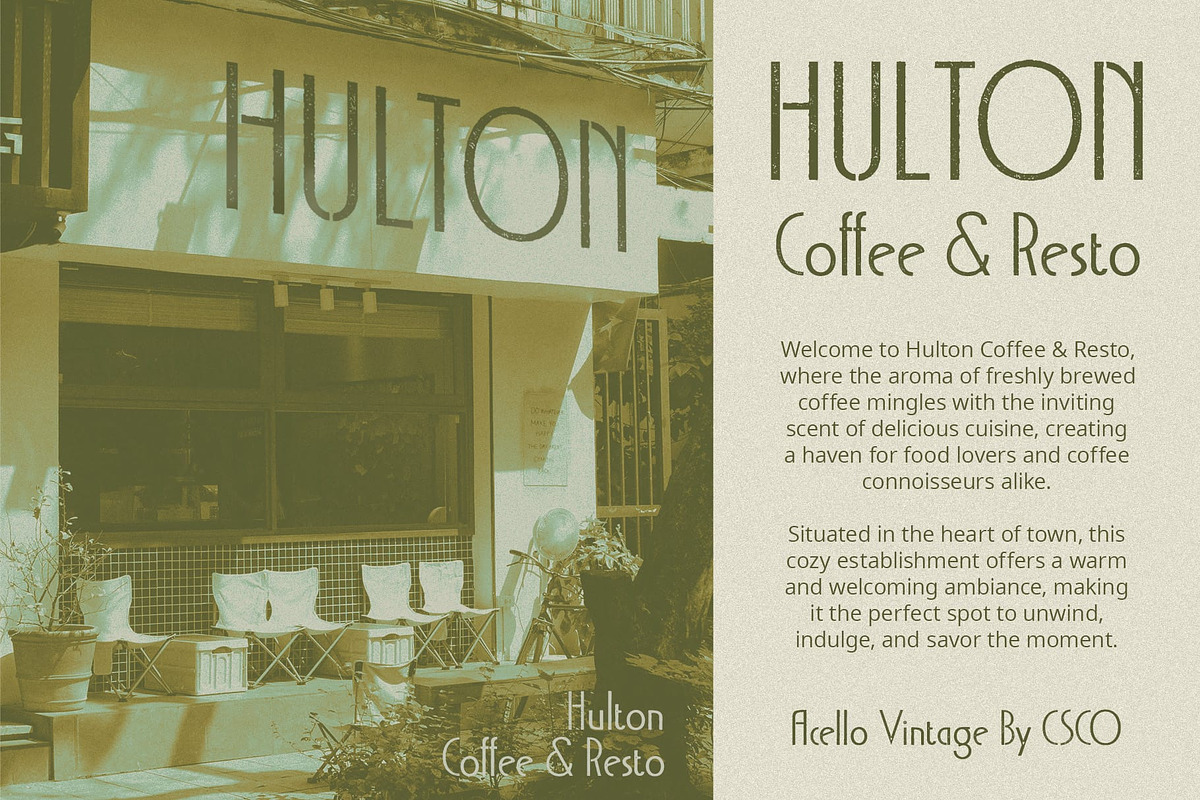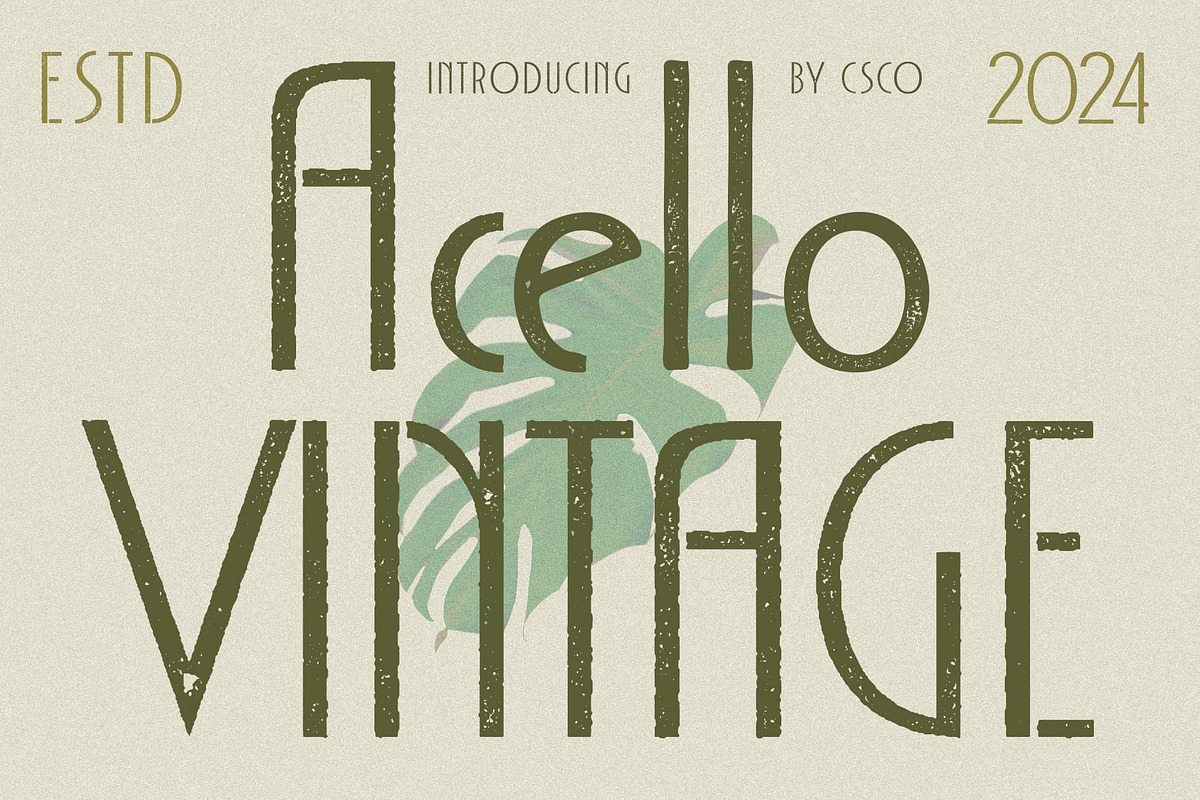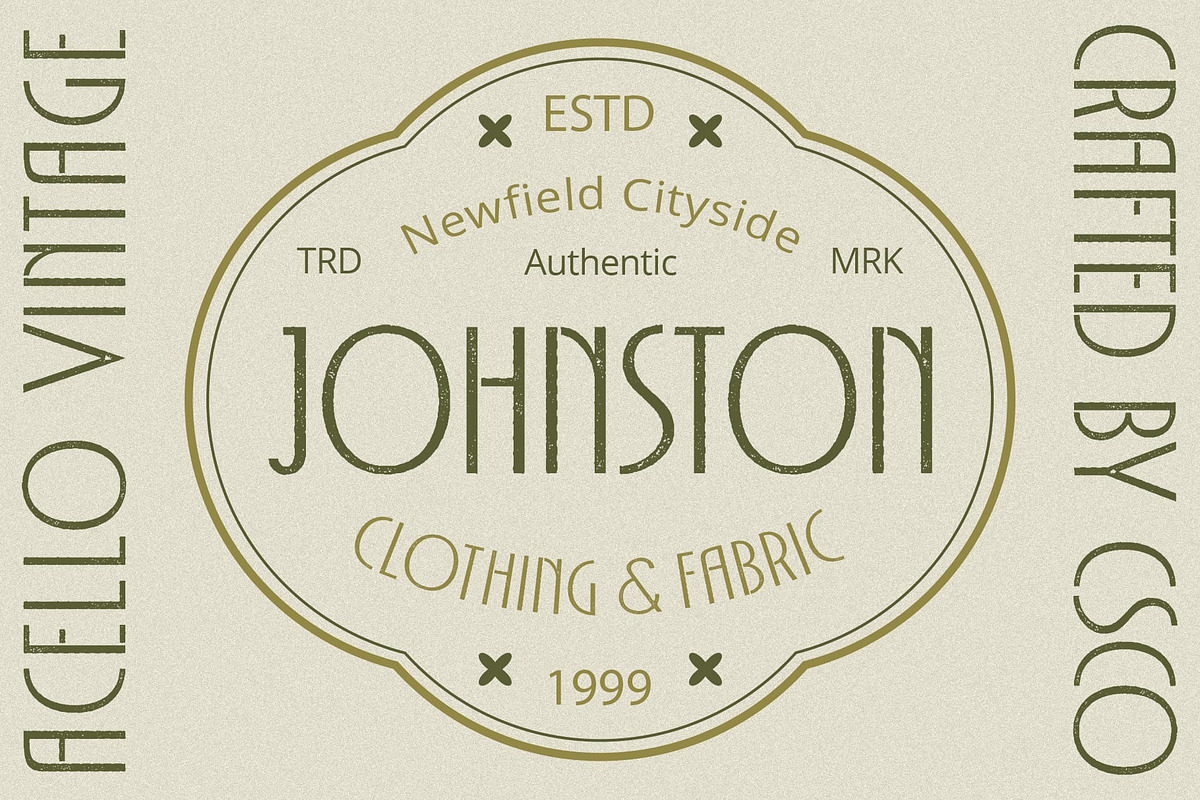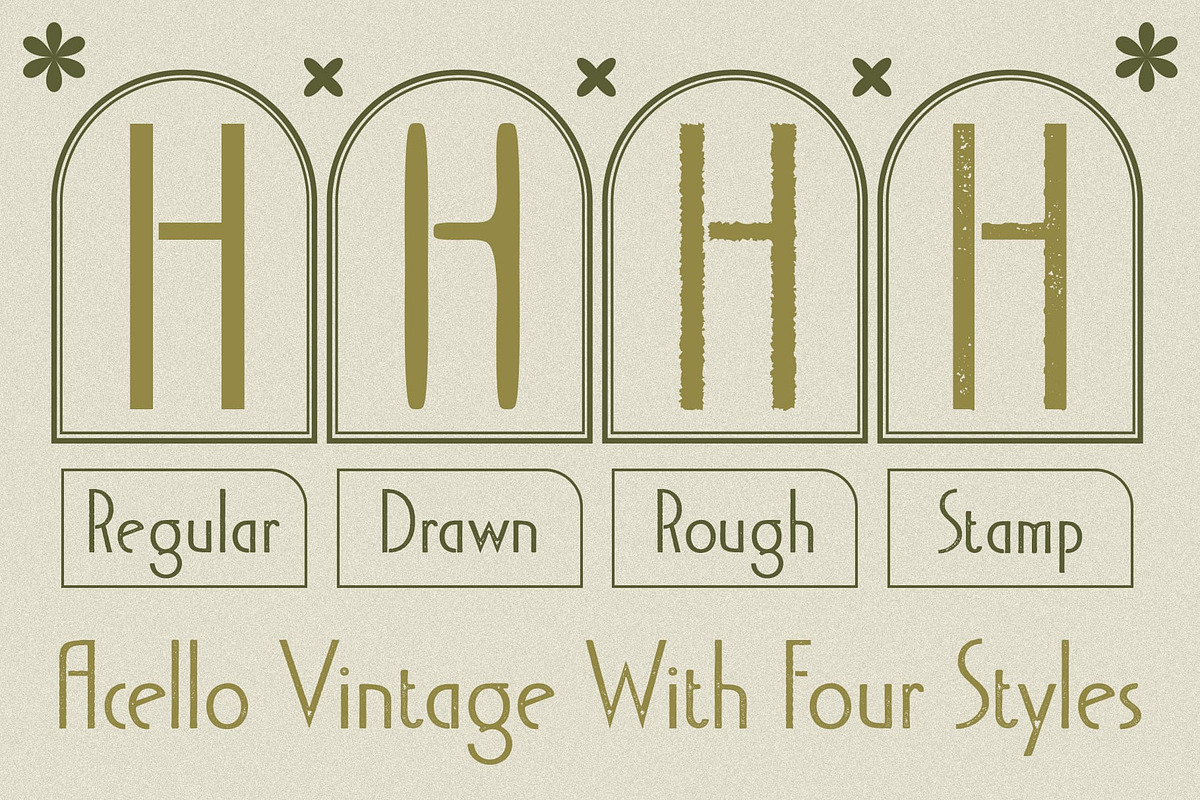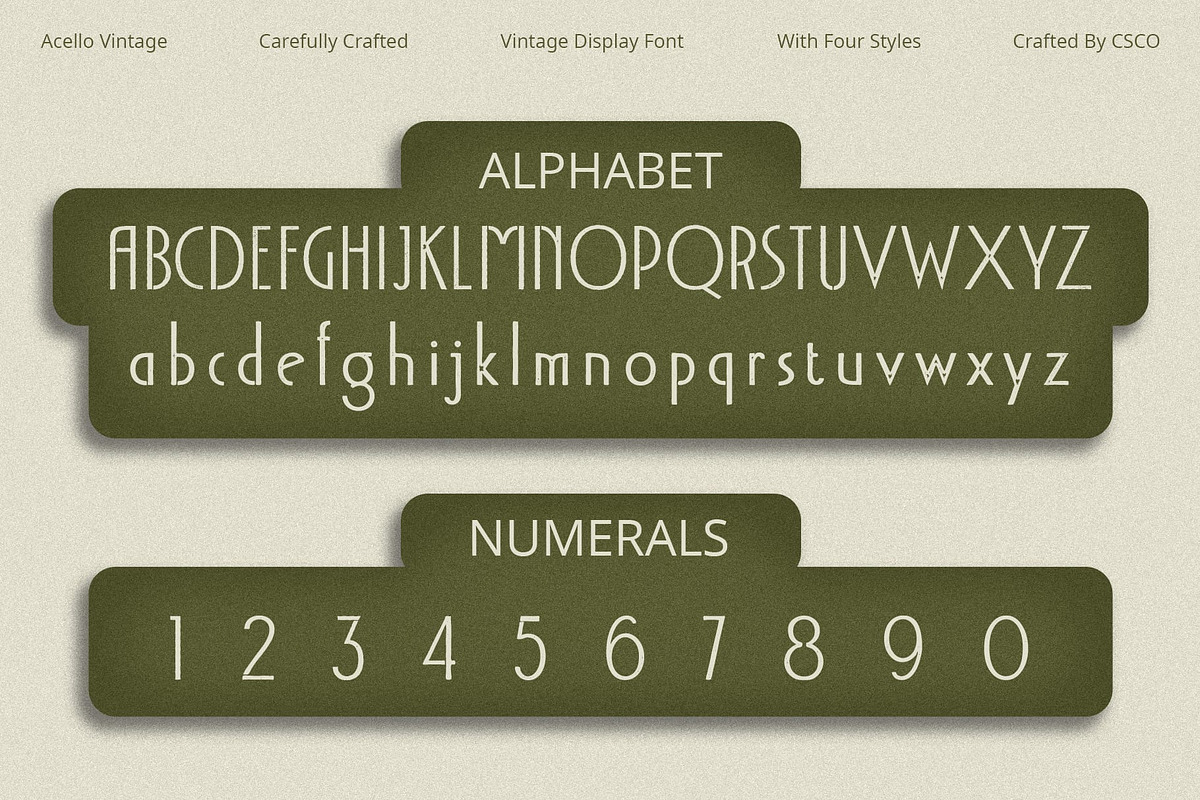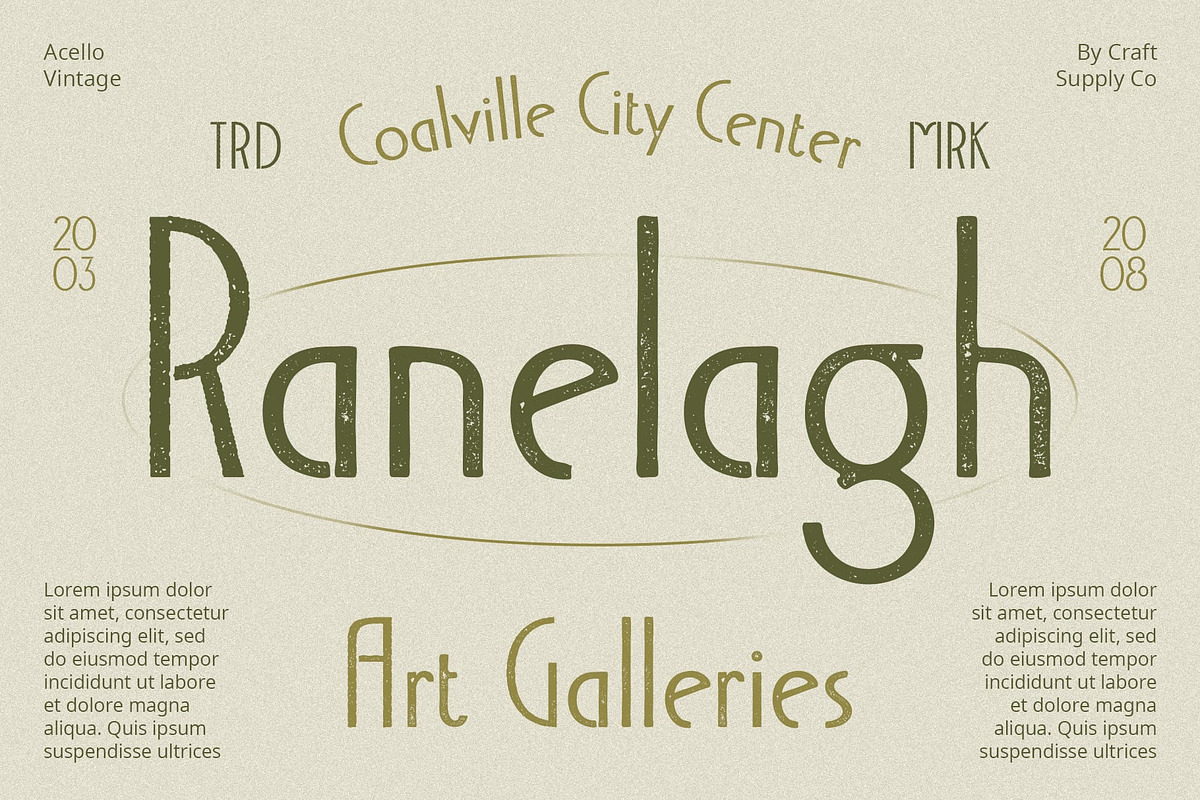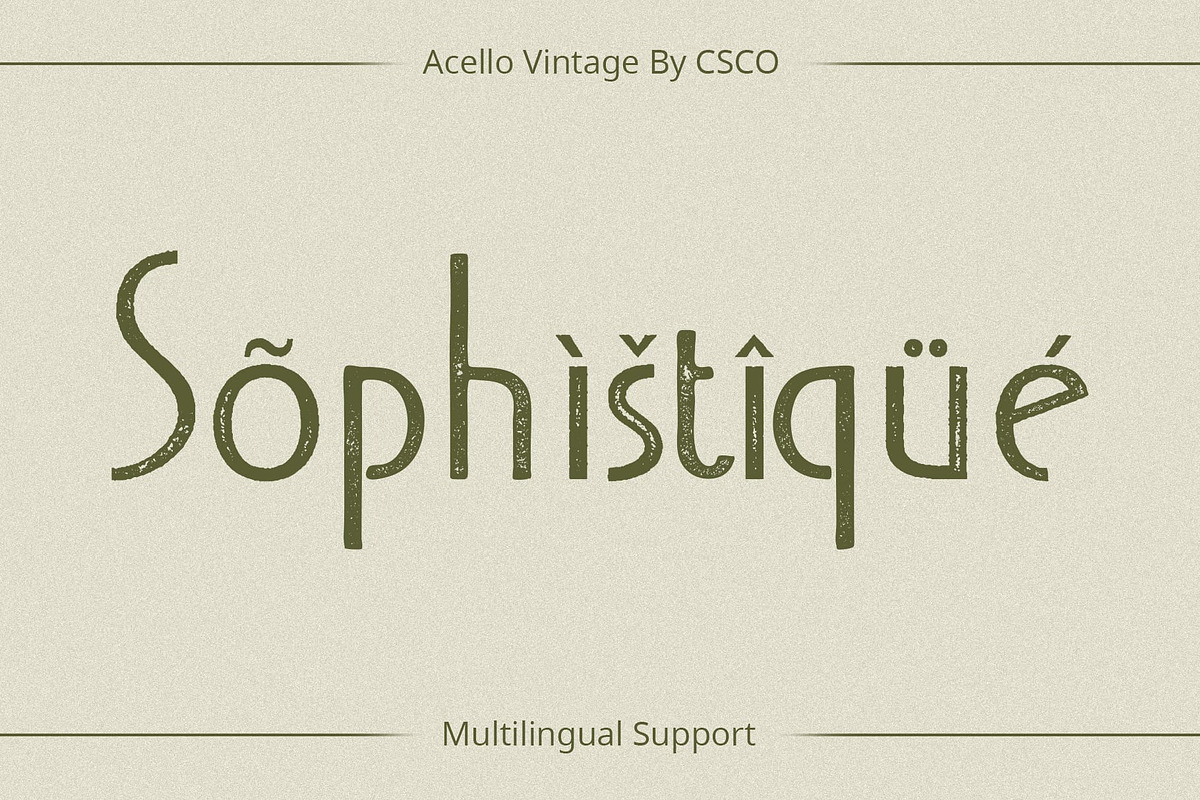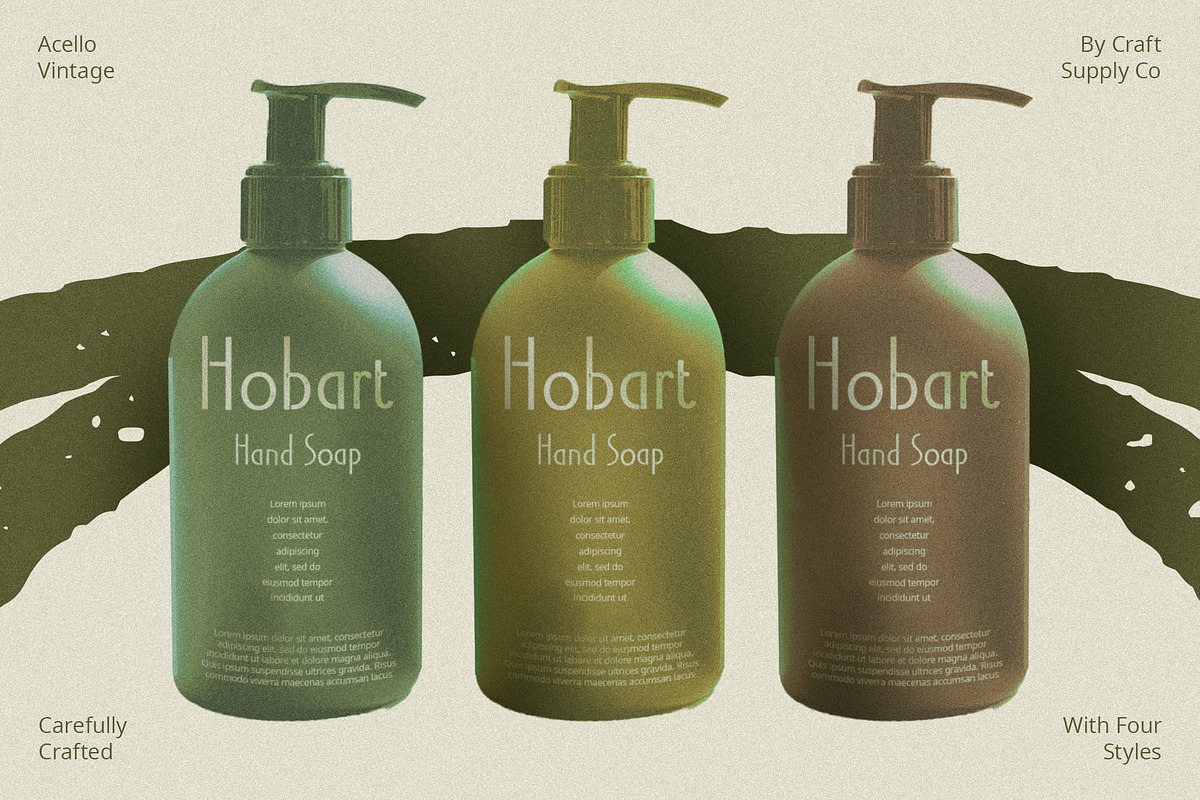
Acello Vintage
Acello Vintage: Timeless Elegance with an Art Deco Twist
Art Deco Inspiration Acello Vintage draws inspiration from the iconic Art Deco movement, infusing the font with sleek lines and geometric shapes reminiscent of the roaring twenties.
Condensed Sans Serif Design With its condensed sans serif design, This font exudes a sense of modernity and sophistication. The narrow letterforms make it perfect for maximizing space and creating visual impact.
Vintage Stamp Effect The font is enhanced with a vintage stamp effect, adding a touch of nostalgia and authenticity. Each character appears as if stamped onto the page, evoking a sense of craftsmanship and heritage.
Ideal for Display This font is tailor-made for display purposes, offering a perfect balance of elegance and vintage charm. Whether used in headlines, signage, or branding materials, it commands attention and leaves a lasting impression.
Capturing the Essence of Art Deco Elegance This font seamlessly blends the timeless elegance of Art Deco with modern design sensibilities. Its condensed sans serif style and vintage stamp effect make it a versatile choice for designers seeking to evoke a sense of sophistication and nostalgia in their projects.
- Acello Regular
- Acello Drawn
- Acello Rough
- Acello Stamp